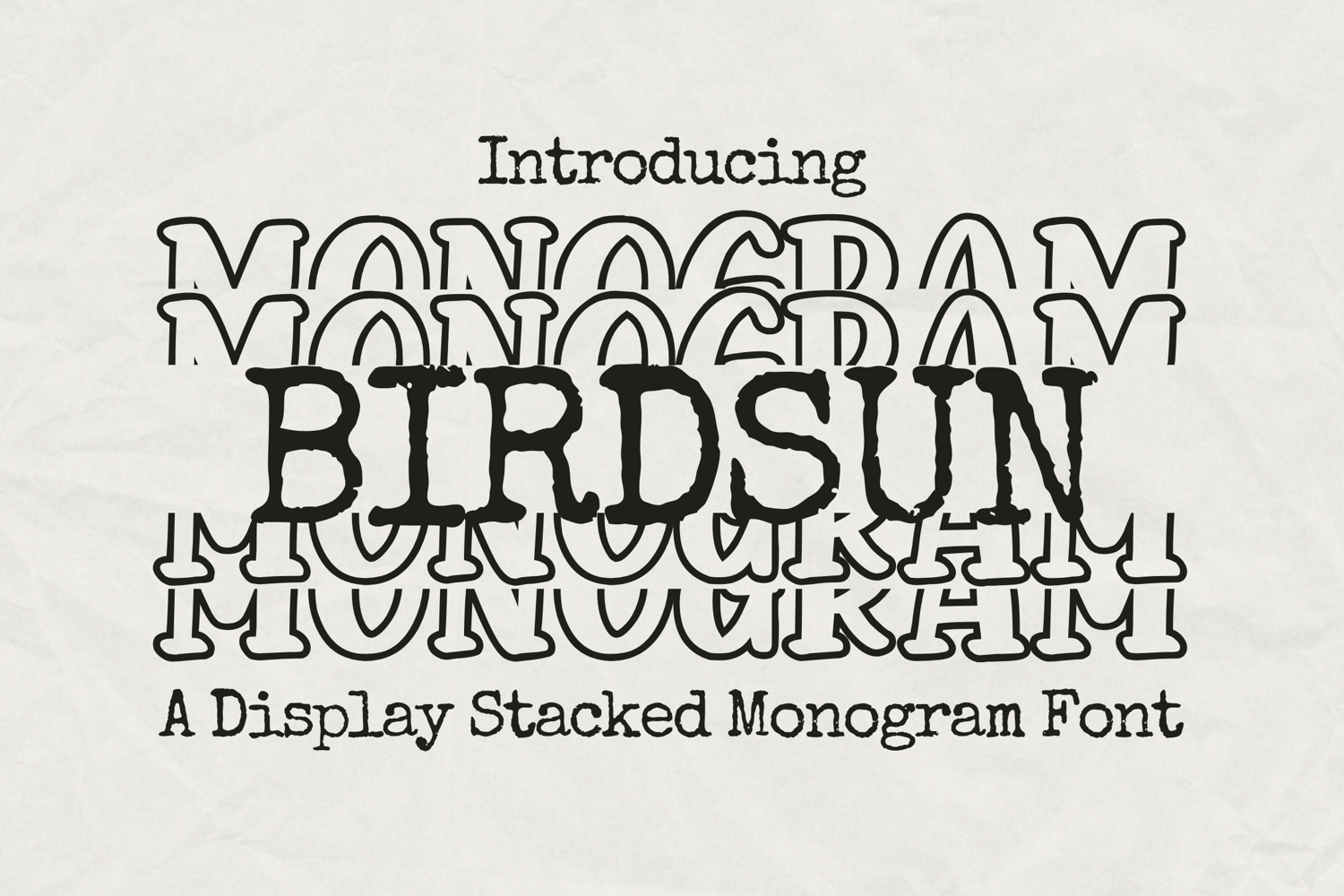
Birdsun Varsity Stacked Monogram
Show your school spirit in style with Birdsun Varsity Stacked Monogram, a bold serif display font designed for athletic aesthetics and monogram versatility. With clean lines, strong serifs, and a stacked layout option, this font is perfect for showcasing team names, graduation gifts, game day shirts, and sporty monogram projects.
Whether you're crafting for a varsity jacket, creating a senior gift, or profesional team apparel, Birdsun Varsity brings a vintage collegiate look that stands tall and proud.
• Birdsun Varsity Stacked Monogram Font (All Caps)
• Easy-to-use uppercase characters
• Stacked monogram design compatibility
• Team spirit wear & school merch
• Graduation caps & gifts
• Cricut and Silhouette designs
• Monogram initials & logos
• Athletic apparel & signage
• Sport-themed birthday decor